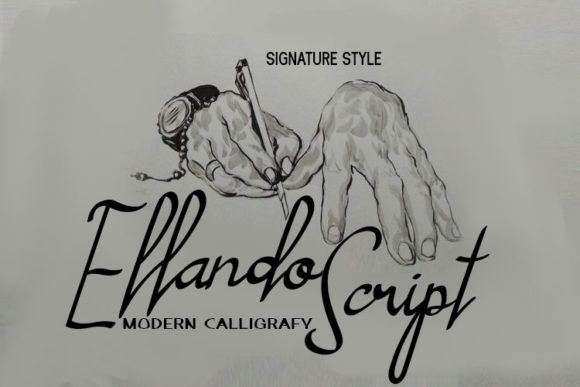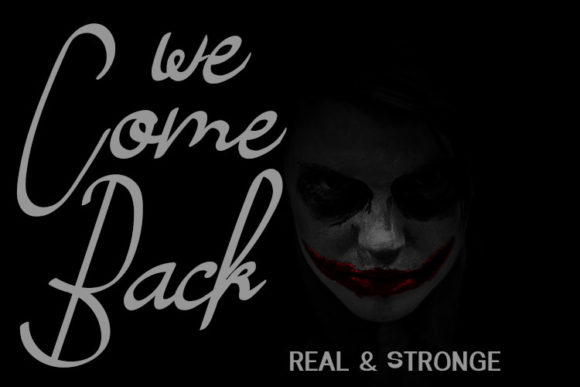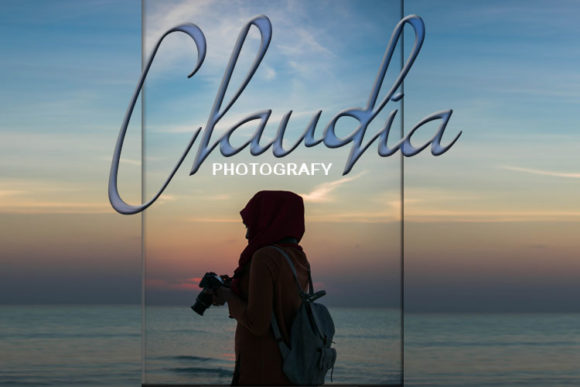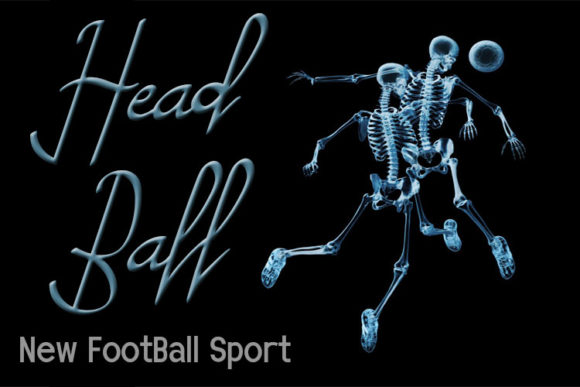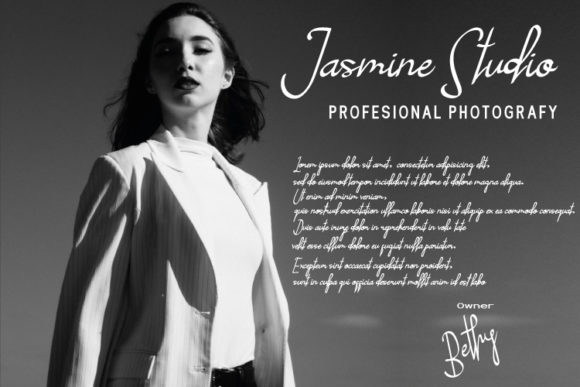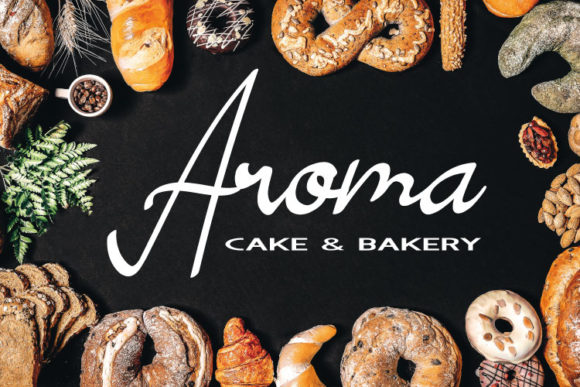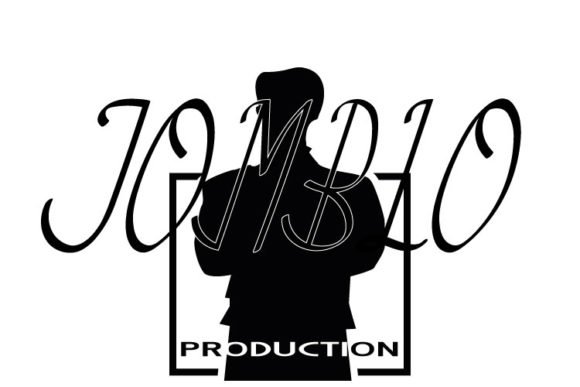
Ellando Font
About Ellando Font
Ellando is a modern Calligraphy font that is readable, thin and stylish. It is defined by smooth curves and is perfect for fashion branding or editorial designs. Add it confidently to your projects, and you won’t be disappointed.